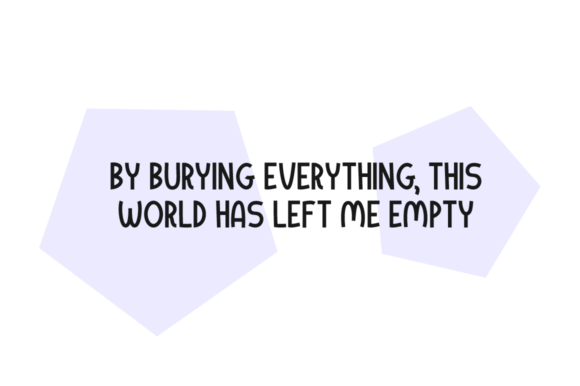
Buried Hopper Font: The Ultimate Display Font for Creative Designs
In the world of typography, fonts play a crucial role in conveying messages, evoking emotions, and creating visual identities. Among the numerous fonts available, Buried Hopper stands out as a brand new display font that has been making waves in the design community. In this article, we’ll delve into the features, uses, and benefits of Buried Hopper Font, and explore how it can elevate your designs to the next level.
What is Buried Hopper Font?
Buried Hopper is a modern, stylish, and highly versatile display font that has been carefully crafted to make a statement. Its unique design and aesthetic appeal make it an excellent choice for a wide range of creative projects, from stationery and logos to t-shirts, posters, and website headers.
This font is designed to be eye-catching, with bold lines, elegant curves, and a distinctive character that sets it apart from other fonts. Whether you’re looking to create a professional brand identity or add a touch of personality to your designs, Buried Hopper Font is an excellent option.
The Many Uses of Buried Hopper Font
One of the standout features of Buried Hopper Font is its incredible versatility. This font can be used in a multitude of design projects, including:
- Stationery: Create professional-looking letterheads, invoices, and business cards that make a lasting impression.
- Logos: Design unique and memorable logos that capture the essence of your brand.
- T-shirts and apparel: Add a touch of style and personality to your clothing and merchandise designs.
- Paper and print design: Use Buried Hopper Font in brochures, flyers, posters, and other print materials to add visual interest.
- Website headers: Create stunning website headers that grab attention and set the tone for your online presence.
- Photo frames and graphics: Add a touch of elegance to your photo frames, social media graphics, and other visual elements.
- Music covers and posters: Design eye-catching music covers, posters, and promotional materials that stand out.
- Image sliders and presentations: Use Buried Hopper Font to add a professional touch to your image sliders, presentations, and other visual content.
The Benefits of Using Buried Hopper Font
So, why choose Buried Hopper Font for your design projects? Here are just a few benefits of using this amazing display font:
- Unique and distinctive: Buried Hopper Font has a one-of-a-kind design that will set your projects apart from the crowd.
- Highly versatile: This font can be used in a wide range of design projects, from print materials to digital content.
- Easy to read: Despite its bold and stylized design, Buried Hopper Font is surprisingly easy to read, making it perfect for headlines, titles, and short paragraphs.
- Customizable: You can adjust the font size, color, and style to suit your design needs and preferences.
Tips for Using Buried Hopper Font
To get the most out of Buried Hopper Font, here are a few tips to keep in mind:
- Use it sparingly: While Buried Hopper Font is stunning, it’s best to use it sparingly to avoid overwhelming your designs.
- Pair it with complementary fonts: Combine Buried Hopper Font with other fonts that complement its style and aesthetic.
- Experiment with colors and textures: Don’t be afraid to try out different colors and textures to add depth and interest to your designs.
- Keep it legible: Make sure to adjust the font size and style to ensure that your text is easy to read.
In conclusion, Buried Hopper Font is an exceptional display font that offers a unique blend of style, versatility, and readability. Whether you’re a designer, entrepreneur, or simply a creative enthusiast, this font is sure to become a valuable addition to your design toolkit. So why wait? Download Buried Hopper Font today and start creating stunning designs that leave a lasting impression!